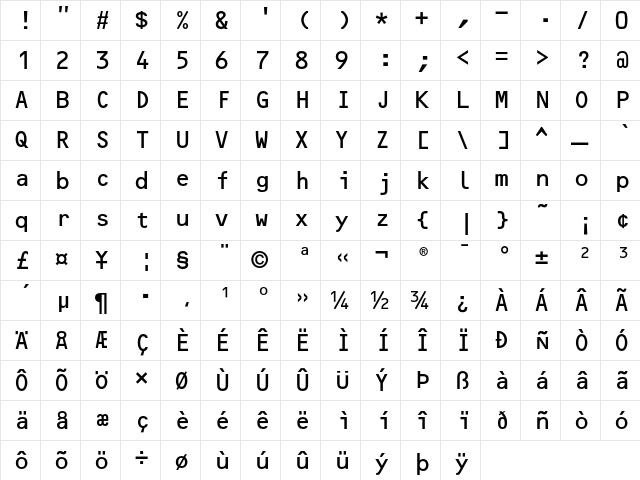
OCRB Alternate Font Preview
OCRB Alternate
Design Context for OCRB Typeface
OCRB is a composed and adaptable typeface that performs quietly and consistently across a wide range of design contexts.